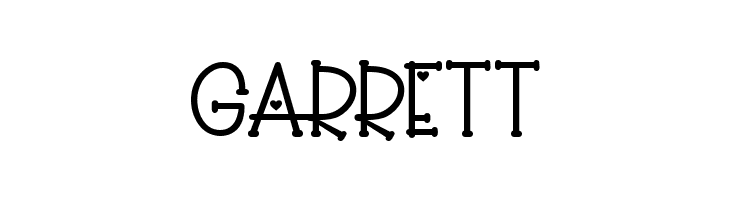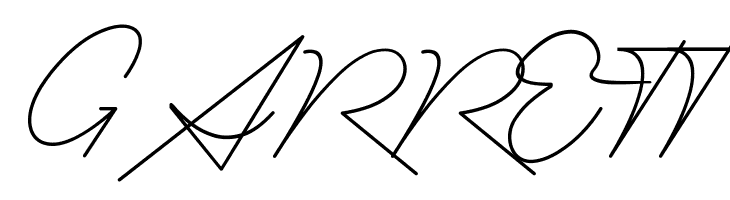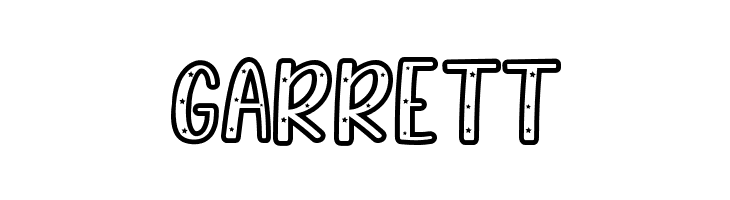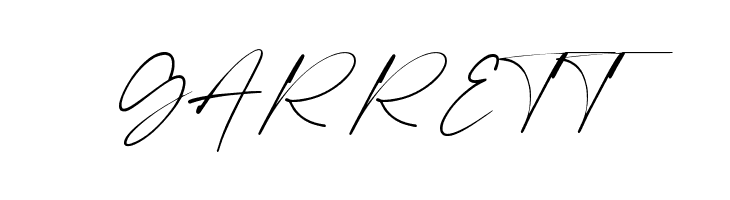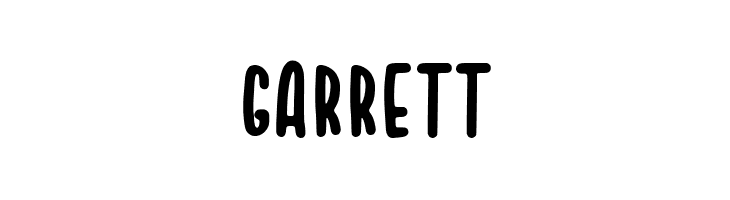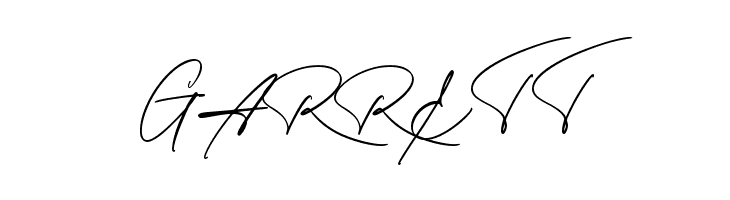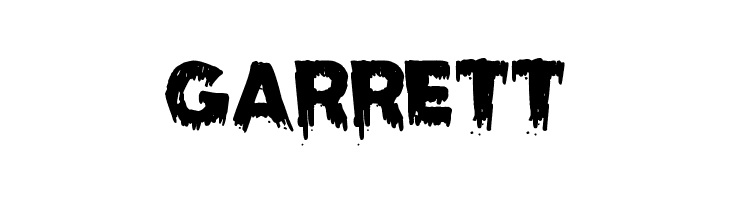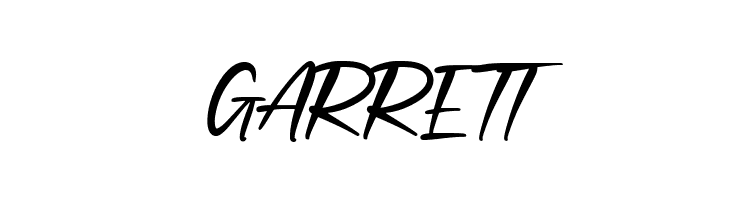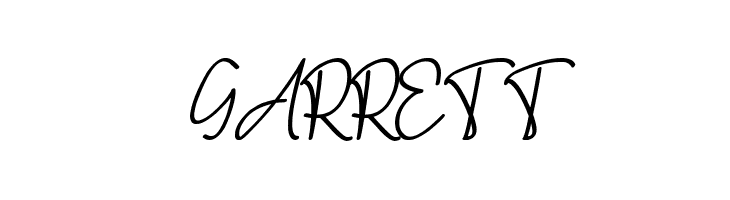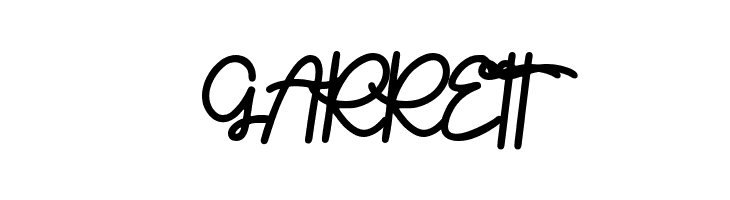
A classic serif typeface with elegant serifs and a traditional design.
A playful, bold font with rounded, bubble-like characters.
A bold and elegant serif typeface with a classic yet modern appearance.
A classic serif font with high contrast and elegant serifs.
A modern, geometric font with clean lines and rounded edges.
A bold, decorative font styled like a filmstrip, perfect for cinematic themes.
A bold, geometric font with a three-dimensional shadow effect.
A bold, three-dimensional font with a shadow effect and geometric design.
A 3D outline font with a geometric, architectural style.
A bold, geometric font with angular and curved elements for a modern look.
A playful and whimsical font with heart motifs and rounded characters.
A modern, geometric font with art deco influences, ideal for stylish and sophisticated designs.
A modern, geometric font with art deco influences and sharp, clean lines.
A geometric outline font with a modern and structured design.
A bold, geometric font with strong lines and a modern aesthetic.
A playful, hollow, hand-drawn font with bold outlines and artistic flair.
A bold, gothic font with sharp, angular edges and a medieval flair.
A bold, brush-like font with an expressive, hand-drawn style.
A bold, geometric font with a strong, authoritative presence.
A bold, 3D font with a filled interior and strong outline, perfect for impactful headlines.
A bold, outlined font with a collegiate, three-dimensional style.
A playful, bold, hand-drawn font with a whimsical and artistic style.
A bold serif font with strong strokes and a classic yet modern appeal.